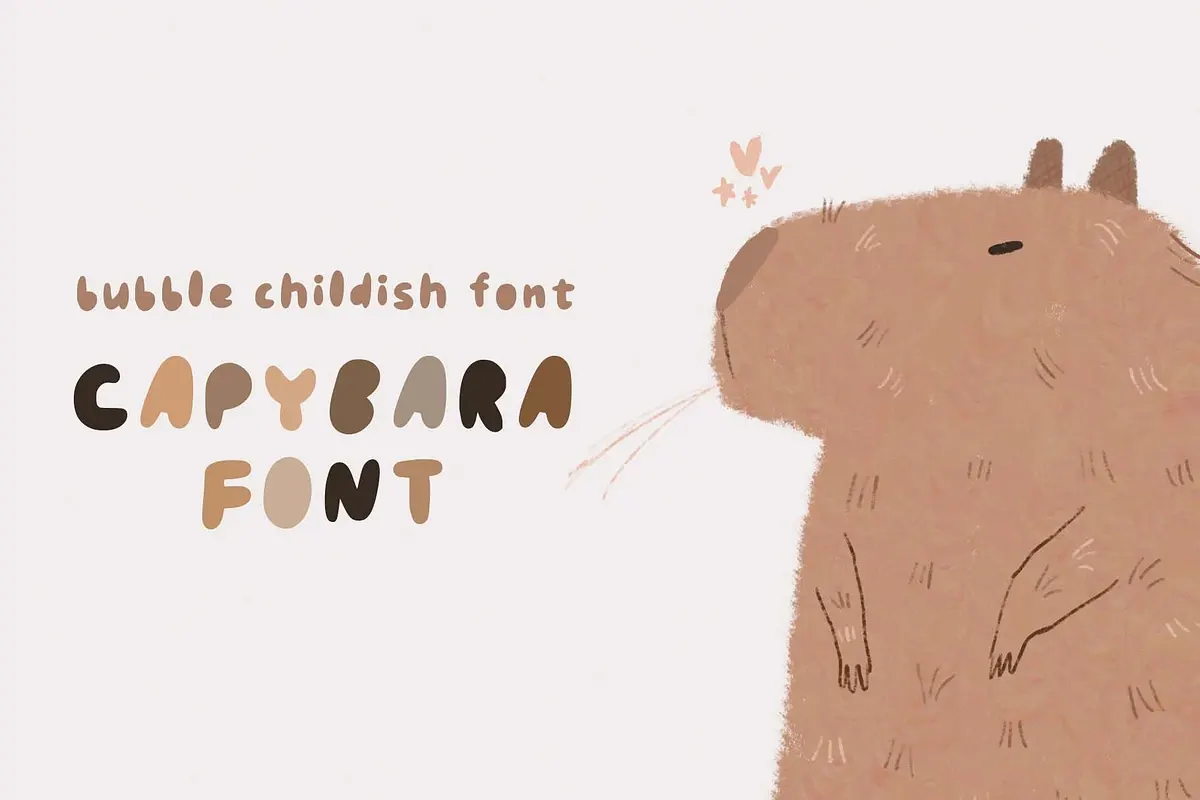
CAPYBARA FONT Bubble Font Free Download is a playful, rounded typeface designed to add a touch of fun and whimsy to your creative projects. With its bold, bubble-like letterforms, this font is perfect for children’s designs, party invitations, logos, posters, and anything that needs a cheerful, friendly vibe.
Whether you’re creating a lighthearted brand, designing playful merchandise, or crafting eye-catching headlines, CAPYBARA FONT delivers personality and joy to your typography. It’s the perfect font for designers who love bold, bubbly typefaces that stand out with charm.